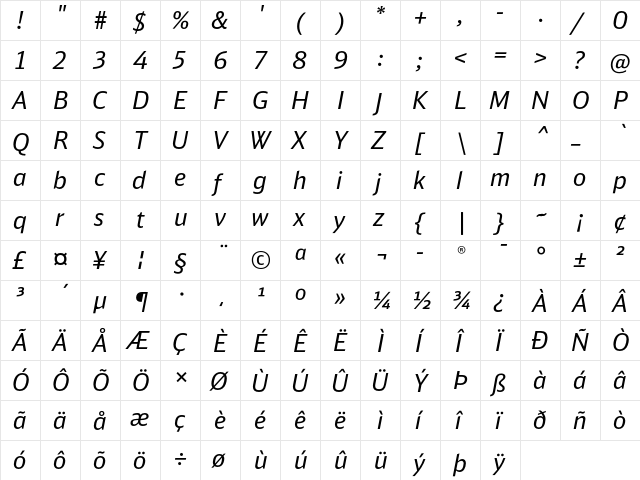
DB Head Regular Italic Font Preview
DB Head Regular Italic
Design Context for DB Head Typeface
DB Head takes a measured approach to typography — its balanced proportions and neutral character make it a reliable workhorse for both digital and print work. The dynamic lean of this cut emphasises speed and emphasis in any layout.
Pro Tip: Try DB Head for annotation and caption copy alongside an upright companion — the contrast in angle creates a dynamic but ordered typographic system.